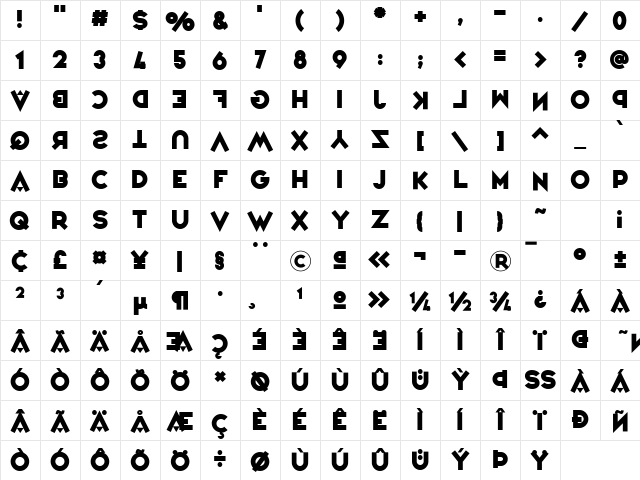
Varietongleur Regular Free Font
Varietongleur Regular
Foundry: Peter Wiegel
Designer: Peter Wiegel
Design Context for Varietongleur
Varietongleur is a composed and adaptable typeface that performs quietly and consistently across a wide range of design contexts.